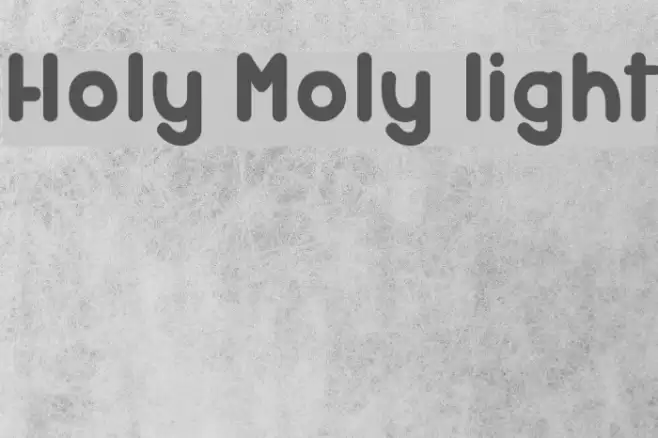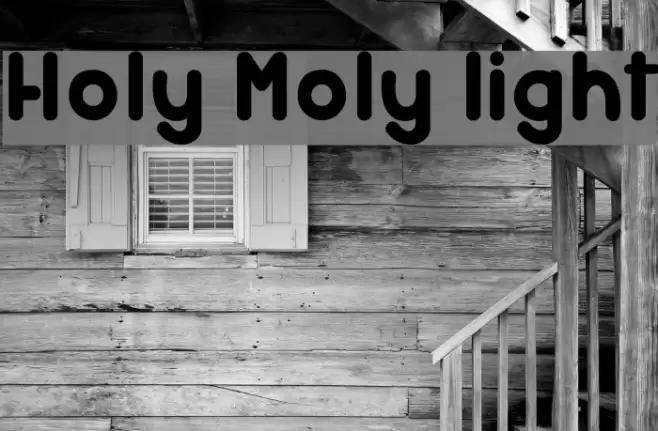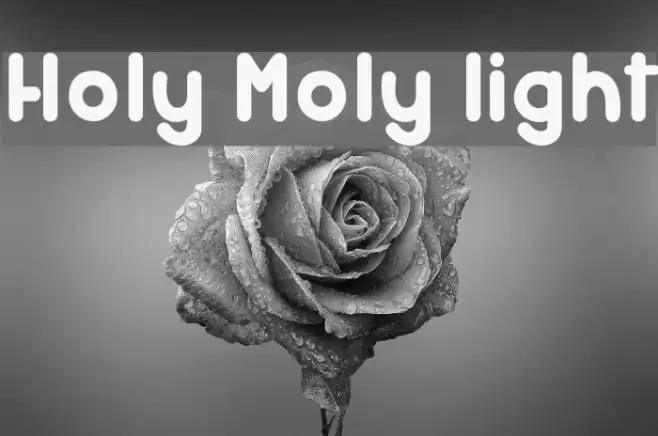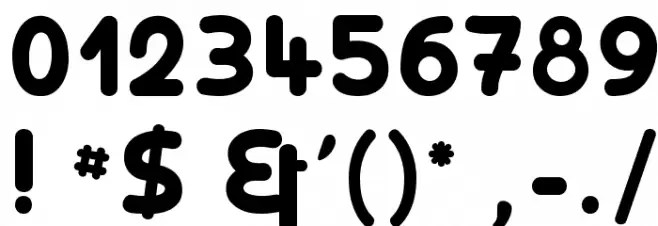
Holy Moly light Font
Holy Moly light Description
This playful and rounded font features bold, smooth curves and a friendly appearance. Each character is crafted with a consistent stroke width, giving it a uniform and cohesive look. The letters are slightly condensed, which adds to its compact and approachable style. The font exudes a sense of fun and creativity, making it ideal for projects that require a lighthearted and engaging touch. Its simplicity and clarity ensure readability, while the unique character shapes add a touch of whimsy. The font includes a full set of uppercase and lowercase letters, numbers, and a variety of special characters, making it versatile for various design needs.
A playful, rounded font with bold, smooth curves and a friendly appearance from Uncategorized fonts.
- Proposed Projects: Ideal for children's books, playful branding, greeting cards, and creative posters.
- Overall Style: Playful